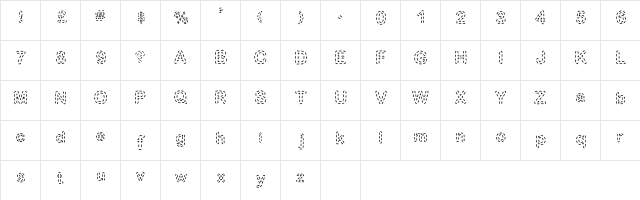
StitchRounded Regular Font Preview
StitchRounded Regular
Design Context for StitchRounded Typeface
StitchRounded softens its letterforms with rounded terminals, giving it an approachable, friendly quality that works well in consumer-facing and digital contexts.
Well-suited to UI design, mobile interfaces, and any brand that wants approachability without sacrificing clarity.
Font Pairing: Pairs well with a rounded or humanist sans for body copy, maintaining the friendly tone without relying on StitchRounded to carry extended reading.
Pro Tip: Use StitchRounded for UI elements, app interfaces, and anywhere a friendly, approachable tone needs to be maintained without sacrificing clarity.